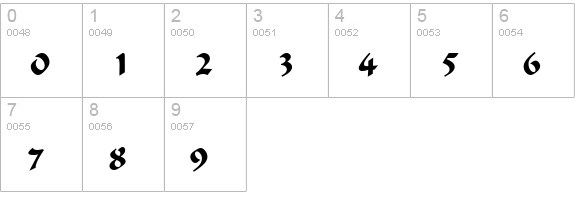
Mondine Font Details
Mondine font is a modern and stylish typeface that exudes elegance and sophistication. With its clean lines and graceful curves, Mondine is perfect for a wide range of design projects, from branding to editorial design. This versatile font is sure to make your text stand out and leave a lasting impression on your audience. Best of all, Mondine font is completely free to download at FontsMarket.com. Whether you're a professional designer or a hobbyist looking to add a touch of class to your projects, Mondine is a fantastic choice. Don't miss out on the opportunity to elevate your designs with this beautiful and versatile font. Download Mondine today and start creating stunning visuals that will captivate and inspire.